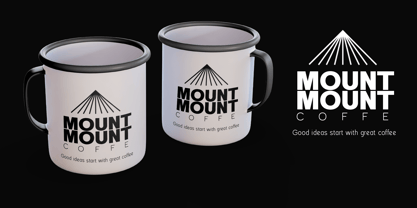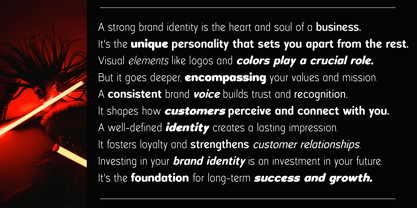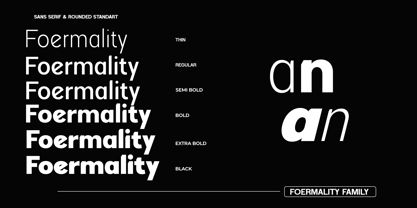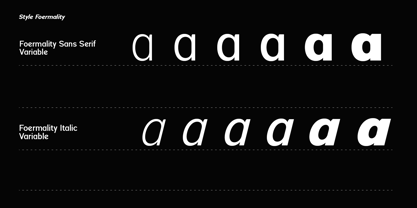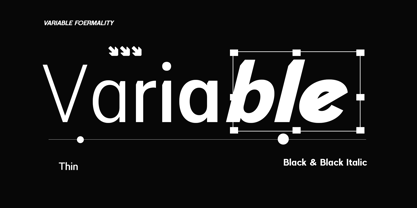
Foermality Sans Variable
by Laroyba Type
The Foermality Sans Variable Font Family was designed by Habib Abdur Rofi and published by Laroyba Type. Foermality Sans Variable contains 2 styles and family package options.
Foermality Sans Variable is a modern and versatile sans-serif typeface designed for clarity, flexibility, and contemporary design needs. Built with a clean geometric structure and refined proportions, Foermality Sans delivers a professional appearance while maintaining excellent readability across various applications. This variable version allows designers to smoothly control the weight axis, providing a seamless transition from lighter styles to bold, powerful expressions. Whether used for branding, editorial layouts, digital interfaces, or large display typography, Foermality Sans adapts effortlessly to different design contexts. The italic variable adds a dynamic and elegant slant, giving designers more expressive freedom without losing the font’s balanced structure. With its balanced geometry, modern character shapes, and smooth variable interpolation, Foermality Sans Variable is an ideal choice for designers seeking both functionality and style in a single flexible font. Perfect for: Branding & visual identity Editorial and magazine design Web and UI design Posters and advertising Modern corporate communication Features Variable weight axis Variable italic axis Clean geometric sans design Highly readable across sizes Modern and professional appearance Foermality is a versatile superfamily consisting of Sans, Serif, and Rounded styles, designed to work beautifully together across a wide range of design applications.
Designers: Habib Abdur Rofi
Publisher: Laroyba Type
Foundry: Laroyba Type
Design Owner: Laroyba Type